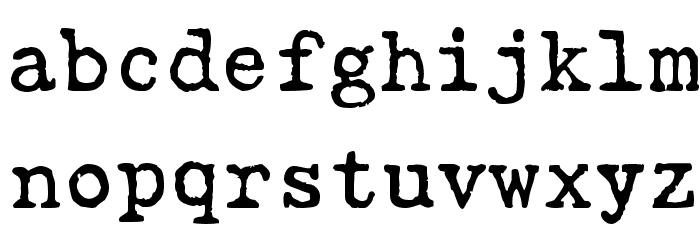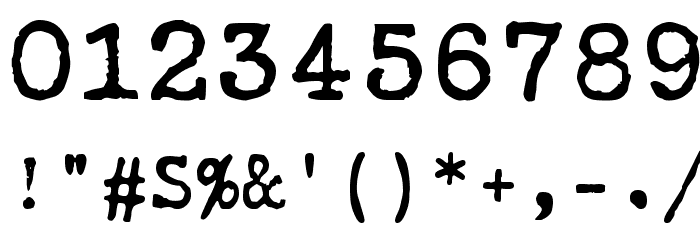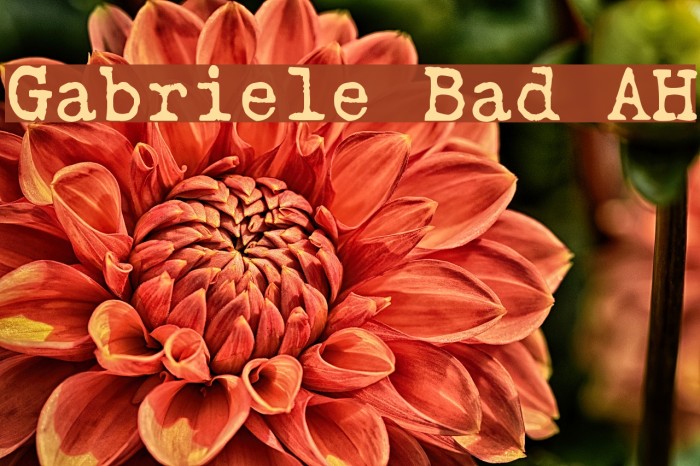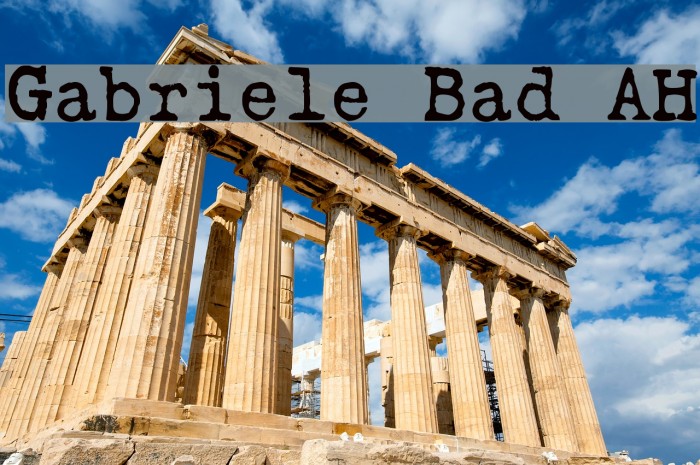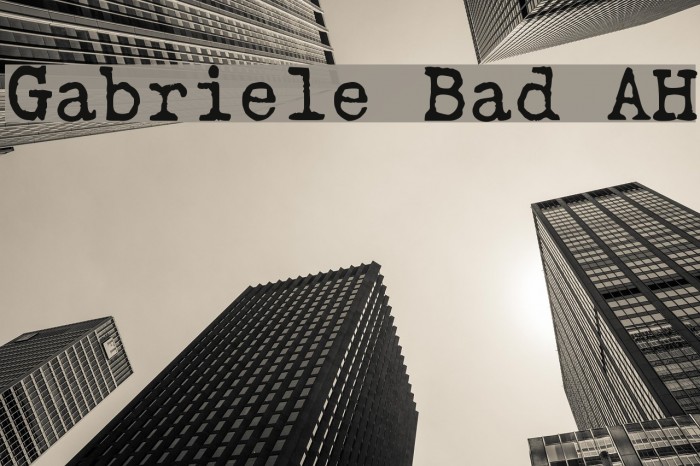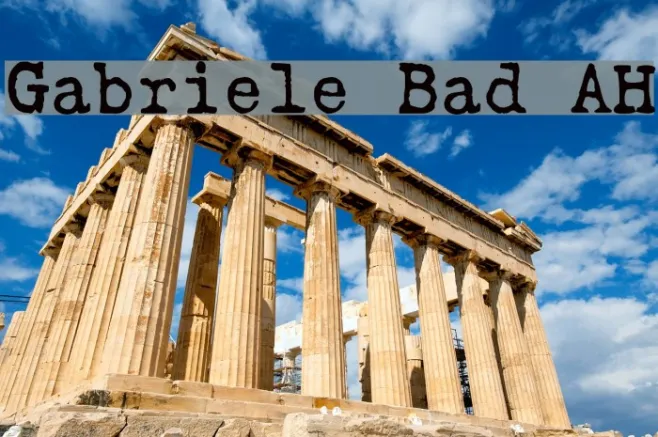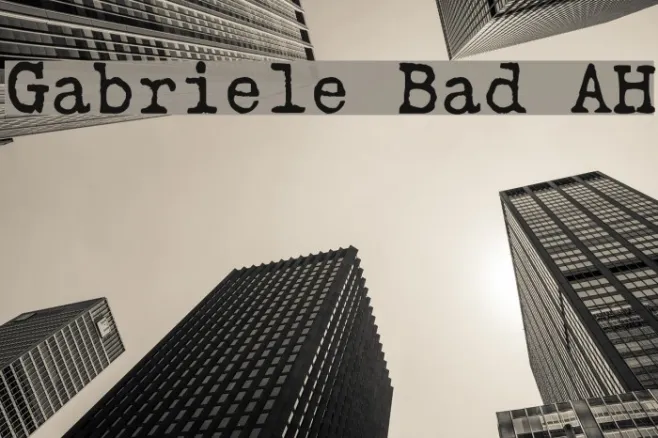
Gabriele Bad AH Font
This font features a rugged, distressed style that mimics the appearance of typewriter text with a worn, vintage feel. The characters are bold and have a slightly irregular outline, giving them a hand-crafted look. The uppercase and lowercase letters maintain a consistent height, while the numbers and special characters follow the same distressed aesthetic. This font is ideal for projects that require a retro or grunge vibe, adding character and authenticity to any design. Its unique texture and bold presence make it stand out, perfect for creating eye-catching headlines or artistic designs.
A rugged, distressed font with a vintage typewriter style.
- Proposed Projects: Ideal for vintage posters, retro-themed designs, artistic projects, and branding that requires a unique, textured look.
- Overall Style: Vintage
- Use Case: Headlines, Logos, Artistic Designs